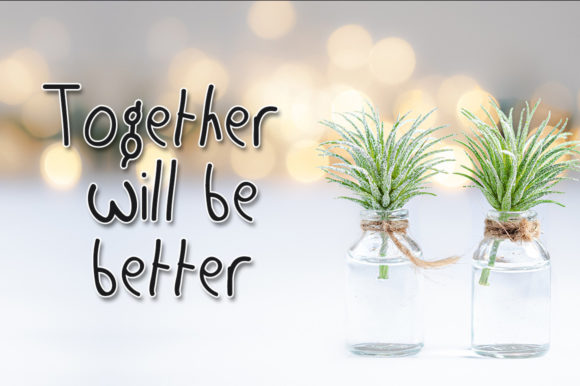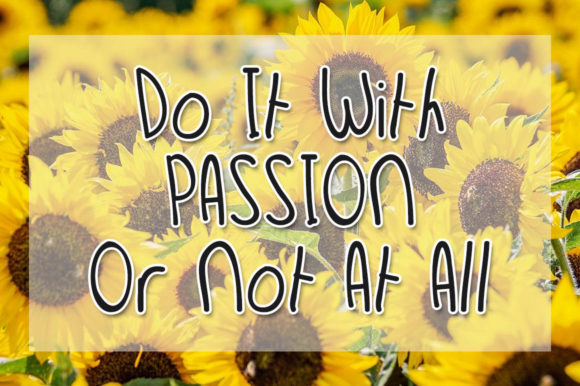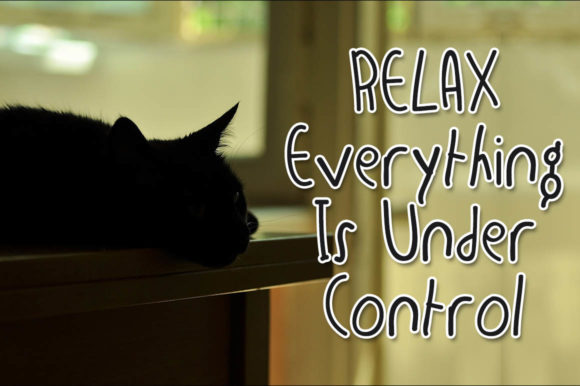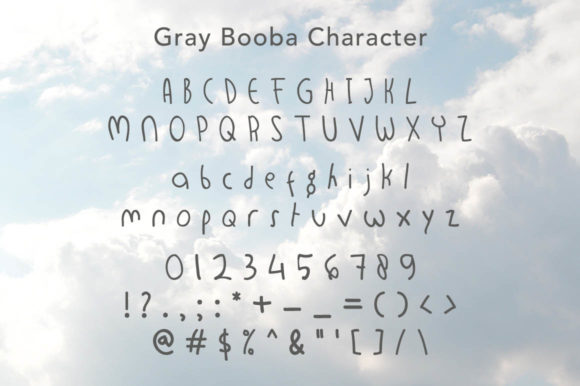
The Gray Booba Font: A Cute and Casual Handwritten Delight
I’ll never forget the time I was working on a project for a client’s children’s book. I had a clear vision of the story, the illustrations, and the overall aesthetic, but there was one thing missing – the perfect font. I scoured the internet, tried out dozens of fonts, but none seemed quite right. That was until I stumbled upon the Gray Booba font. Its unique, handwritten style instantly captured the playful and whimsical essence of the story, and I knew I had found the one.
An Honest Review of Gray Booba
- ✨ The natural and unique style of Gray Booba makes it incredibly versatile and fitting for a wide range of designs.
- ✅ The font is highly legible, even at smaller sizes, making it perfect for body text or captions.
- 💕 The casual, handwritten feel of Gray Booba adds a touch of warmth and personality to any design.
While Gray Booba is an amazing font, it’s not perfect. Here are a few things to keep in mind:
- ⚠️ Some characters may appear a bit inconsistent in terms of letter spacing, which can make it tricky to use for justified text.
- 🤔 The font may not be the best choice for very formal or professional designs, as it has a distinctly casual feel.
- Experiment with OpenType features like ligatures and stylistic alternates to add some extra flair to your text.
The Story Behind Gray Booba
While the origins of Gray Booba are shrouded in mystery, it’s clear that the designer was inspired by the world of handwritten typography. With its unique blend of casual elegance and playfulness, Gray Booba is the perfect font for anyone looking to add a touch of personality to their designs.
| Author | morningmondayy |
Q: Is Gray Booba suitable for body text?
A: Absolutely! Gray Booba is highly legible, even at smaller sizes, making it perfect for body text or captions.
Q: Does Gray Booba support OpenType features?
A: Yes, Gray Booba supports OpenType features like ligatures and stylistic alternates, which can add an extra layer of creativity to your designs.